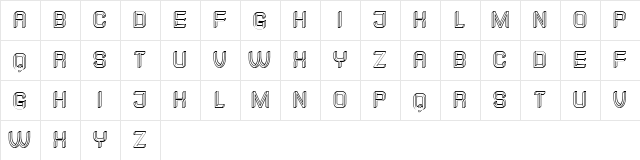
Illusion Hollow Condensed Regular
Design Context for Illusion Hollow Condensed Typeface
Illusion Hollow Condensed is a composed and adaptable typeface that performs quietly and consistently across a wide range of design contexts. The condensed width makes it efficient for tight spaces without sacrificing legibility.
Pro Tip: Use Illusion Hollow Condensed in both headline and body roles to test its range before committing to a single application.